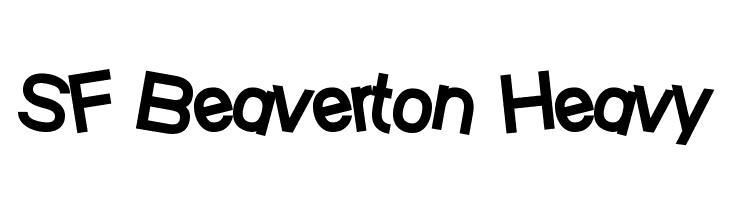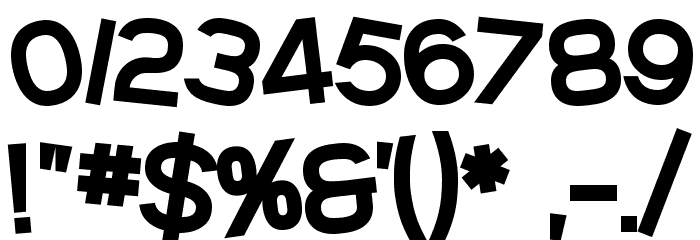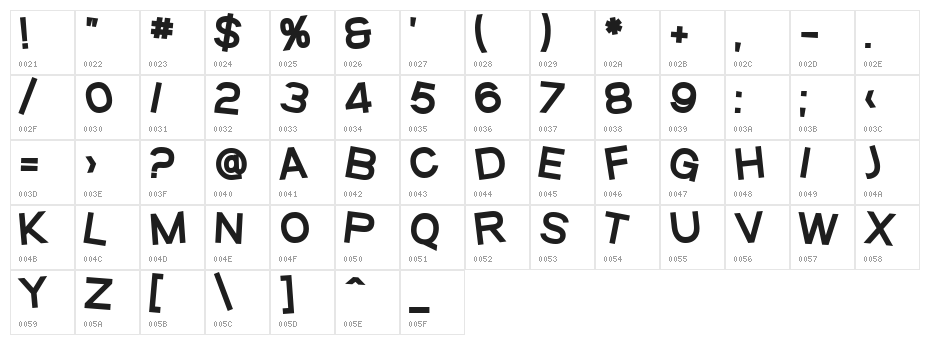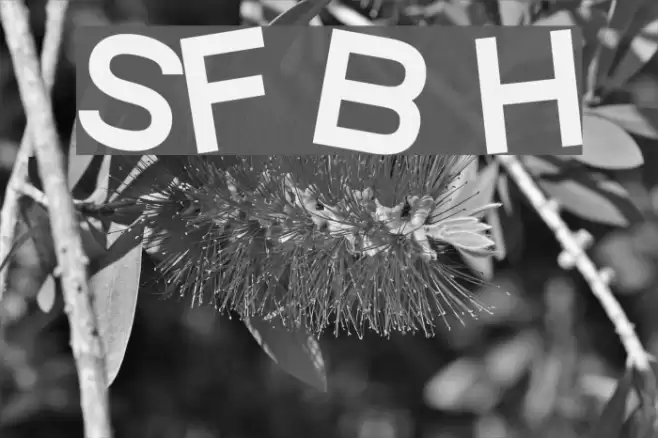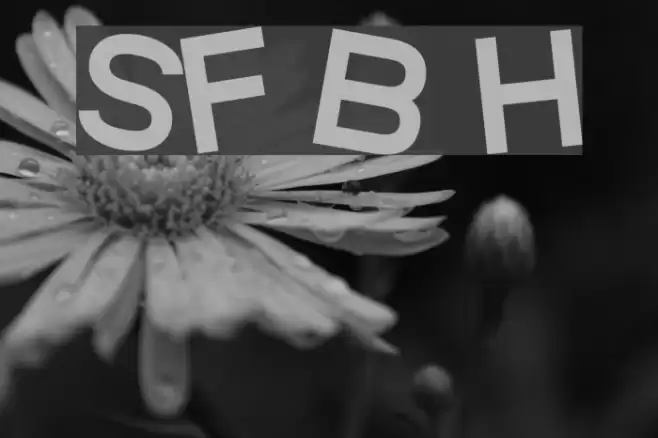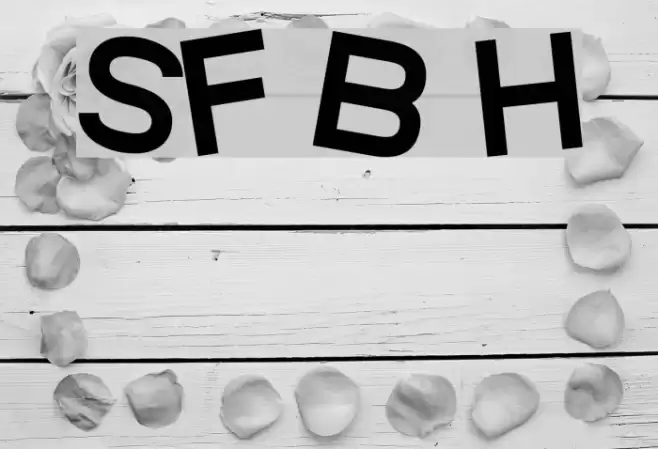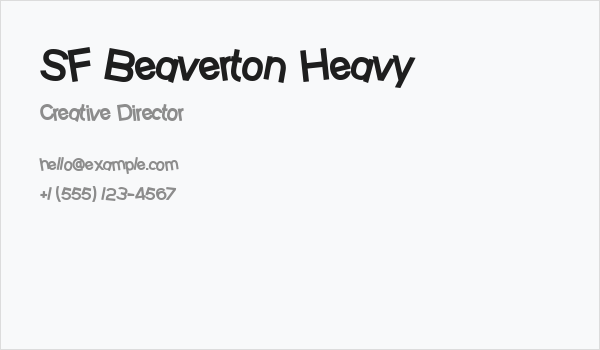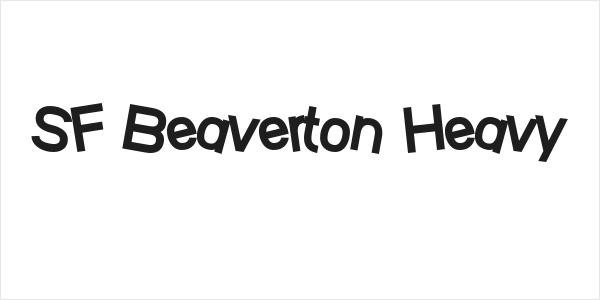
SF Beaverton Heavy Font
SF Beaverton Heavy Description
This font exhibits a bold and playful character with a strong presence. The letters are slightly tilted, giving a dynamic and energetic feel. The strokes are thick and consistent, contributing to its heavy appearance. The rounded edges soften the overall look, making it approachable and friendly. The font maintains a uniform width across all characters, ensuring readability and balance. Its unique style is suitable for grabbing attention while maintaining clarity.
| Overall Style | Playful, Modern |
| Proposed Projects | Ideal for children's books, playful branding, posters, and headlines that require a strong, friendly impact. |